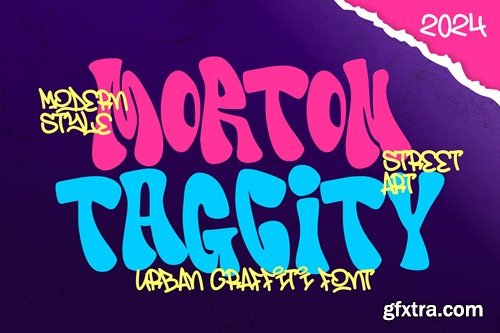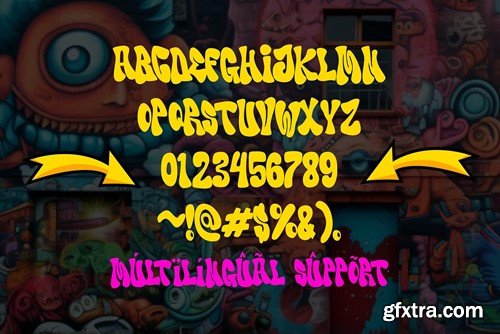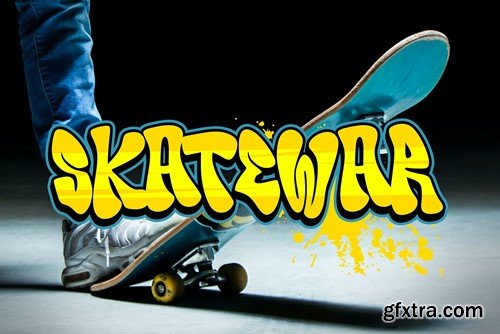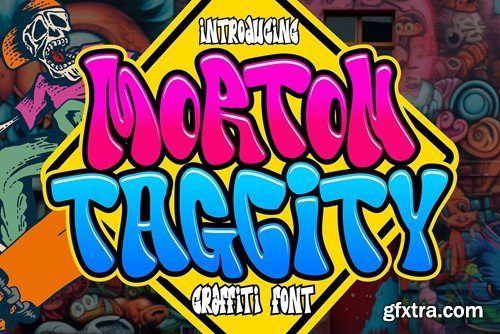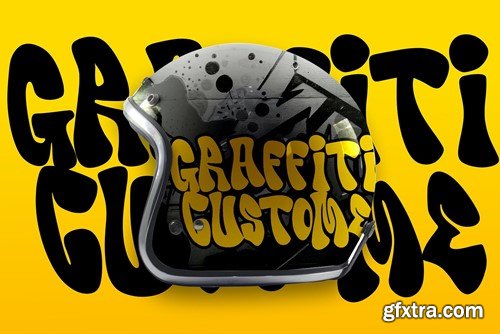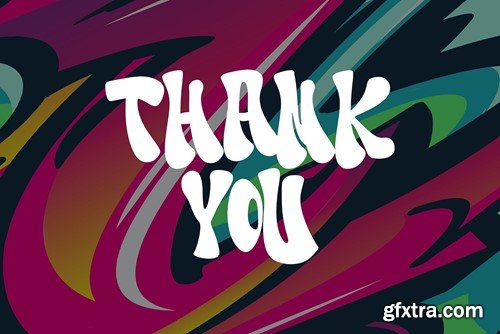
Morton Tagcity - 火车头字体 Q55KRRZ
Morton Tagcity is described as an impressive graffiti font. Fonts within this category often exhibit bold, dynamic, and expressive letterforms typical of graffiti art. Such fonts are commonly used in urban-themed designs, street art, posters, and various creative projects aiming for a bold and eye-catching typographic style. With Morton Tagcity, you can create designs that convey urban aesthetics and the energetic spirit associated with graffiti art. Its bold and expressive nature makes it suitable for projects where a vibrant and impactful typographic style is desired. File Included : Features: That's it! If you have any questions don't hesitate to ask! Stay Classy!